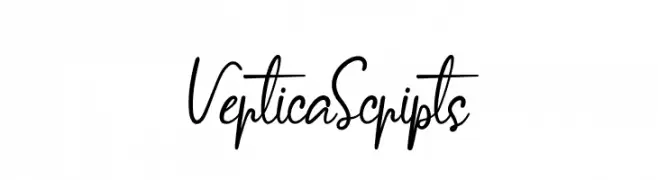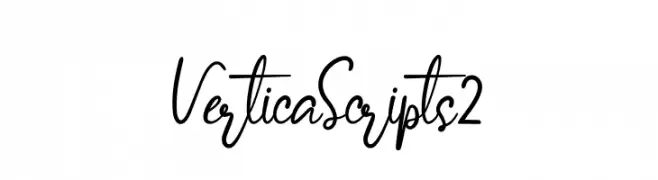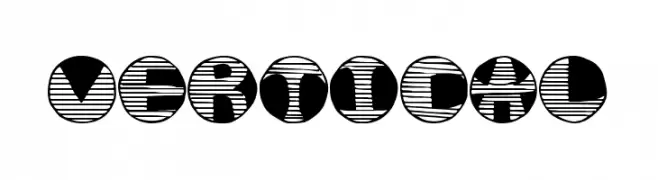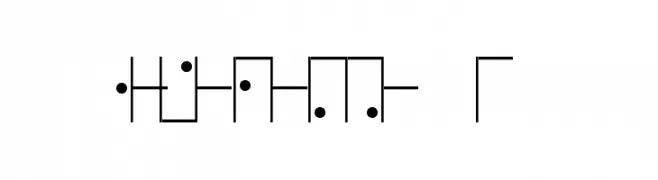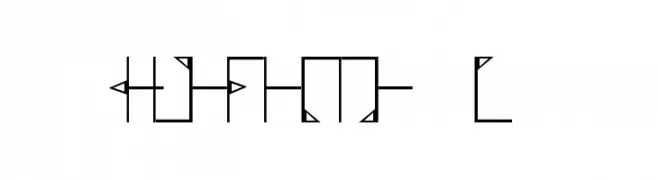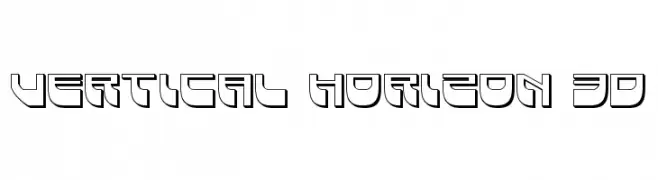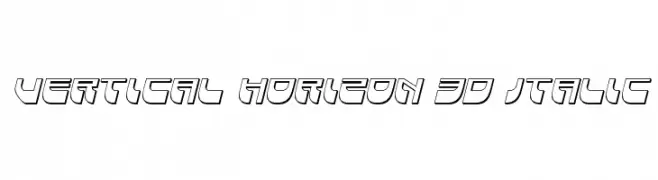
A lively and expressive script font with fluid, connected letterforms.
A lively and dynamic script font with fluid, connected letterforms.
A lively script font with flowing, interconnected letterforms and a modern, playful vibe.
A dynamic and flowing script font with elegant, fluid letterforms.
A bold, circular font with striped characters for a modern, artistic look.
A modern, geometric font with intersecting lines and dots for a futuristic look.
A geometric and angular font with a futuristic and abstract design.
A bold, futuristic font with geometric and dynamic shapes.
A futuristic, geometric font with a 3D effect and bold outlines.
A futuristic 3D italic font with bold outlines and geometric shapes.